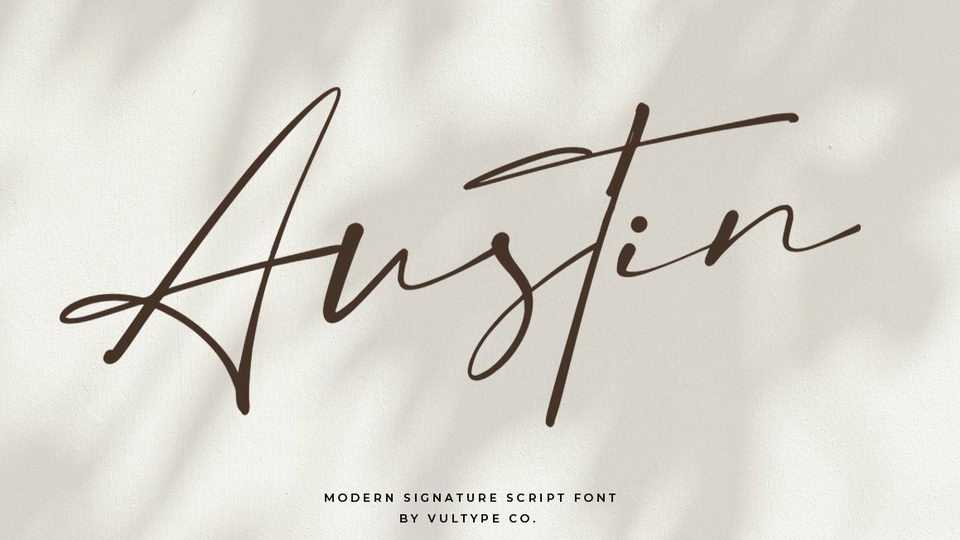
Download Austin font, a minimalistic signature typeface, ready to add unique look and bloom on your design. Austin easily cooperating for magazine, book titles, photography watermarks, wedding invitation and more.
Designer: Vultype Co